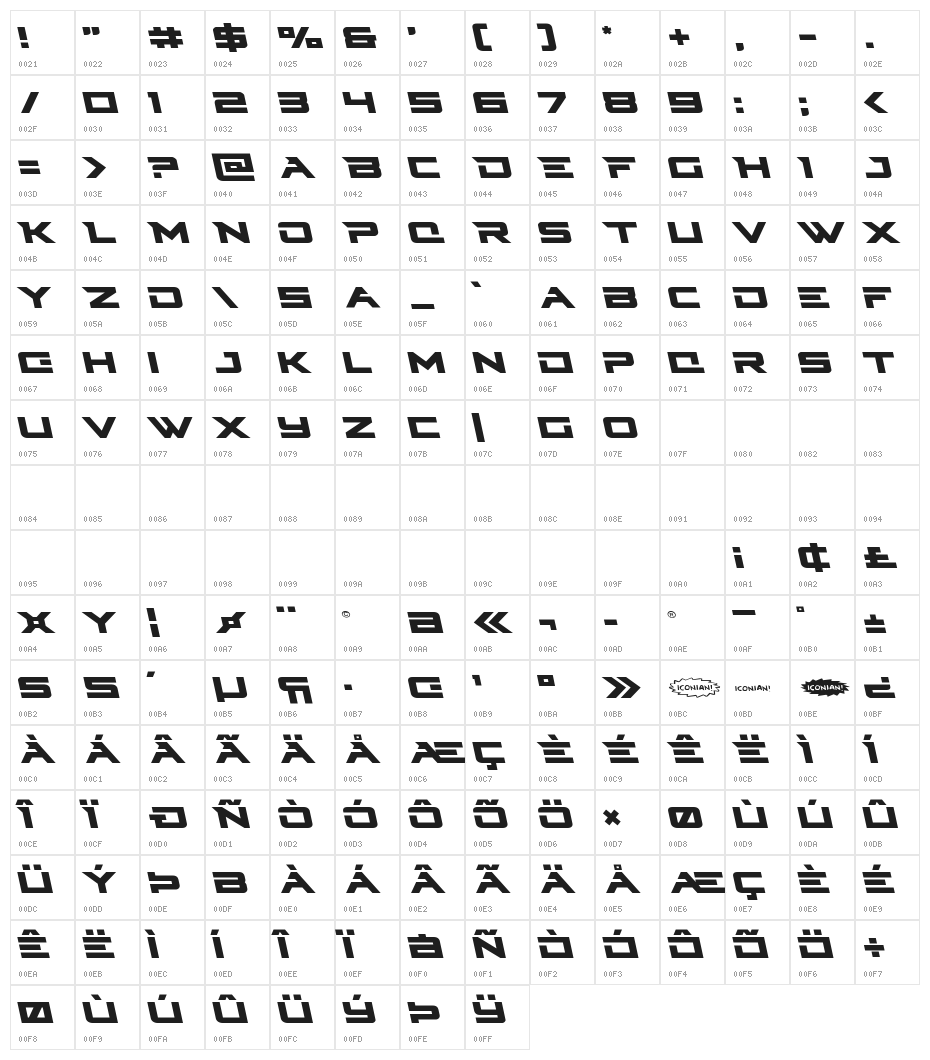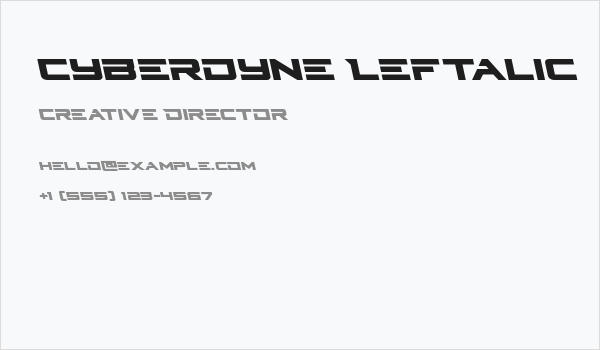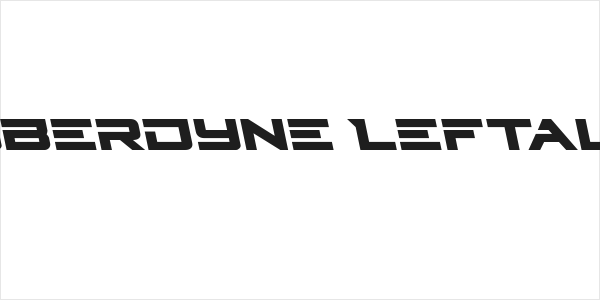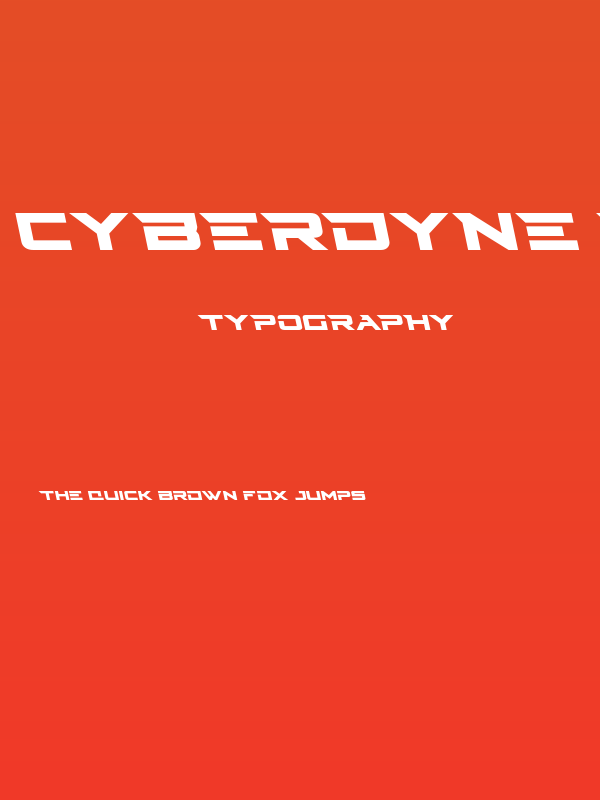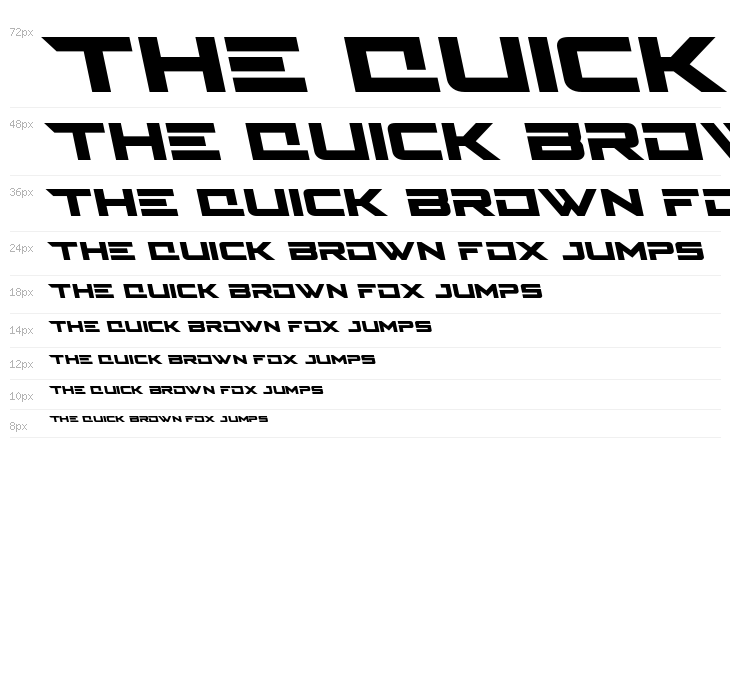
Cyberdyne Leftalic Font
Cyberdyne Leftalic Description
This font features a futuristic and angular design, characterized by sharp edges and a distinct slant to the left, giving it a dynamic and forward-moving appearance. The uppercase and lowercase letters maintain a consistent geometric style, with uniform stroke widths that contribute to its bold and impactful look. The numerals and special characters follow the same design principles, ensuring a cohesive visual identity across all glyphs. This font's unique style makes it ideal for projects that require a modern and technological aesthetic.
| Proposed Projects | Ideal for technology branding, sci-fi movie posters, video game titles, and futuristic-themed designs. |